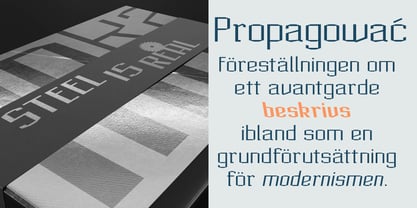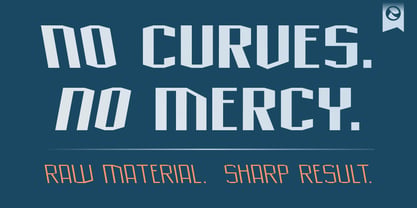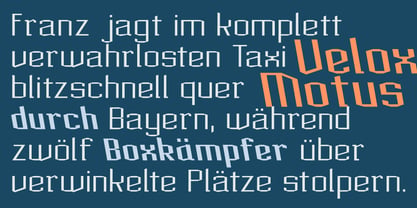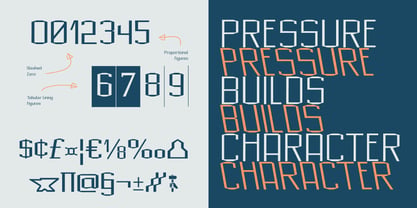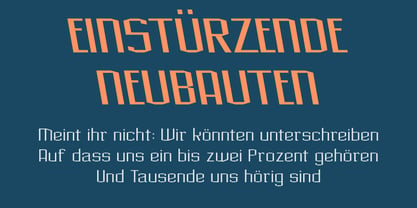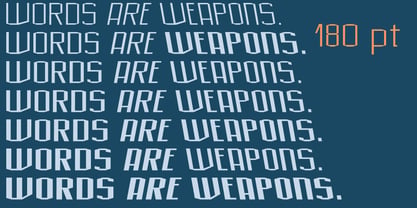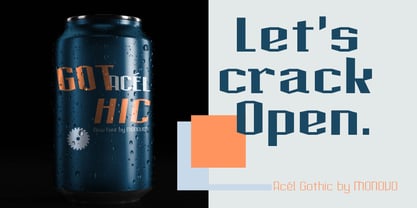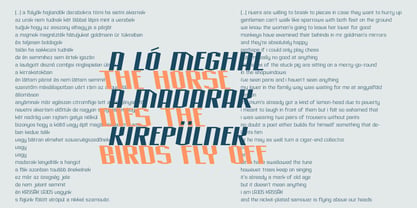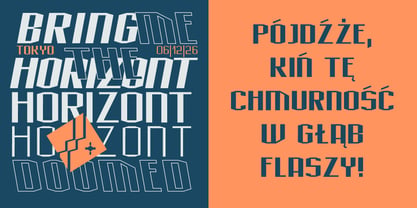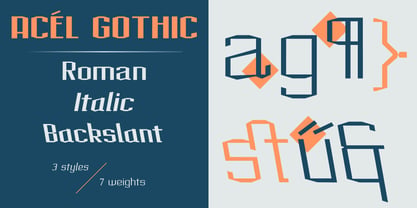
Acel Gothic
La familia tipográfica Acel Gothic fue diseñada por Amondó Szegi y publicada por Monovo. Acel Gothic contiene 21 estilos y opciones de paquete familiar. Más información sobre esta familia
ACÉL Gothic is a constructivist display family built from industrial logic — angular, uncompromising, and forged for maximum visual impact. No curves, no compromise: 21 fonts across three styles — Roman, Italic, and Backslant — cut from the same raw material, ready to hammer your headlines into shape. What you get: 3 styles × 7 weights — Thin through Black Roman / Italic / Backslant Proportional & Tabular figures, Slashed Zero Extended Central European character set OpenType features: ligatures, fractions, currency symbols The Story ACÉL Gothic began its life under a different name. Published as Munka — the Hungarian word for "work" — it spent years quietly available on Creative Market, waiting for the right moment. Like many things worth keeping, it needed time. The name was never accidental. It was a nod to Lajos Kassák, the great Hungarian avant-garde poet, painter, and typographer, who titled his most celebrated poem-sequence A ló meghal a madarak kirepülnek — and who, like the designer, began his career as a worker. Kassák built his art from labor, from the factory floor, from the raw material of everyday life. So did this typeface. The rename to ACÉL — Hungarian for "steel" — adds another layer. In Hungary, the word carries a sharp historical echo: György Aczél was the notorious cultural commissar of the Kádár era, the man who controlled what could and could not be published, performed, or exhibited for decades. Kassák and the spirit of the avant-garde frequently clashed with exactly that kind of power. Naming a typeface ACÉL is a small provocation — a knowing wink to anyone who catches it, invisible to everyone else. Now reforged with 3 styles and 7 weights, ACÉL Gothic returns not as a revival but as a reckoning. Raw material, sharp result.
Monovo is the innovative type universe crafted by Amondó Szegi, a distinguished type designer and educator at Moholy-Nagy University of Art and Design (MOME) in Budapest. As the founder of Fontanatype, Hungary's first internationally recognized digital type foundry established in 1999, Szegi brings over 25 years of expertise to the field. His typefaces have gained prominence through T-26, where several designs reached bestseller status, alongside P22/IHOF and The Type Foundry. Licensed by Canva, his work continues to enhance editorial design, brand identity, and cultural projects globally. Fontanatype uniquely bridges historical references with contemporary practices, translating rhythm, structure, and typographic intelligence into functional type systems that respect tradition while innovating. Monovo builds upon this legacy with a conceptual focus, embodying the belief that letterforms are dynamic tools of communication—shaped by history, culture, and practical application, from editorial text to expressive design. Drawing inspiration from the rich lineage of typographic forms and the intentional challenge of rule-breaking, Monovo produces flat, iconic, and versatile typefaces that convey clarity, warmth, and purpose. Through Monovo, Szegi delves into appropriation, revival, and reinterpretation, treating letters as conceptual ready-made objects while broadening the creative horizons of type in contemporary design.